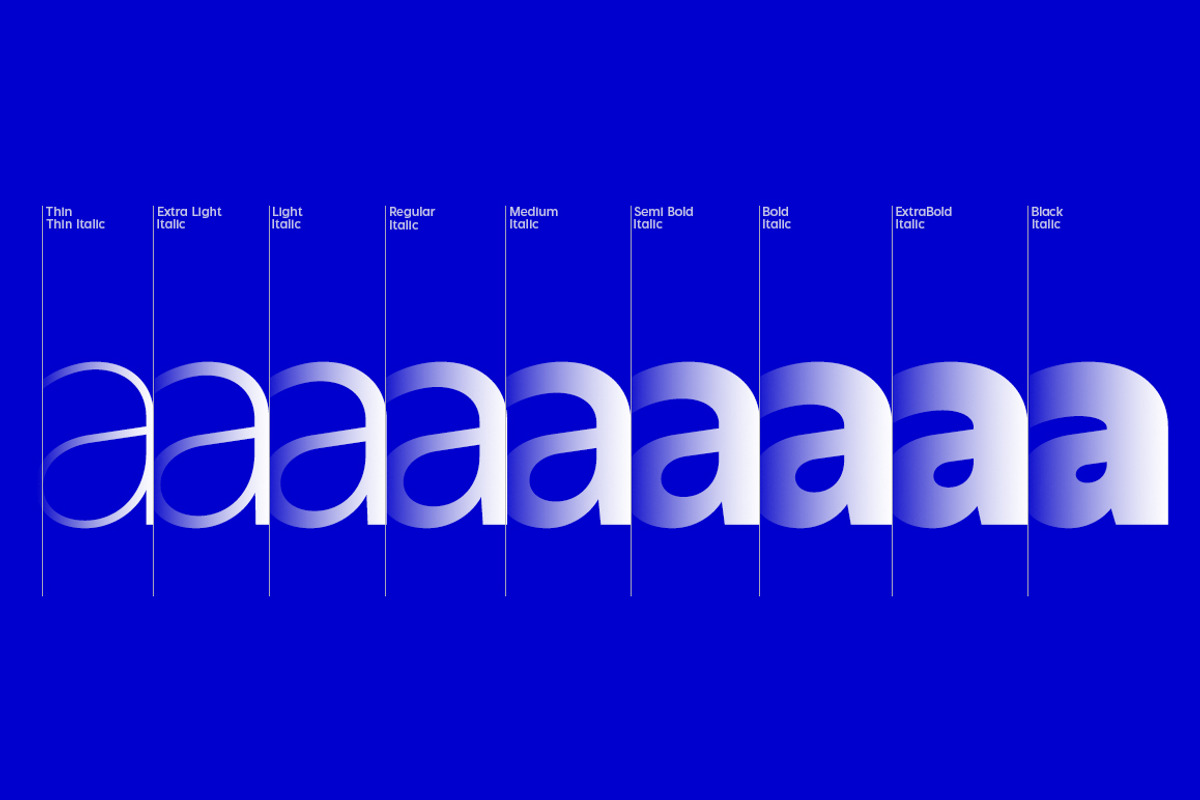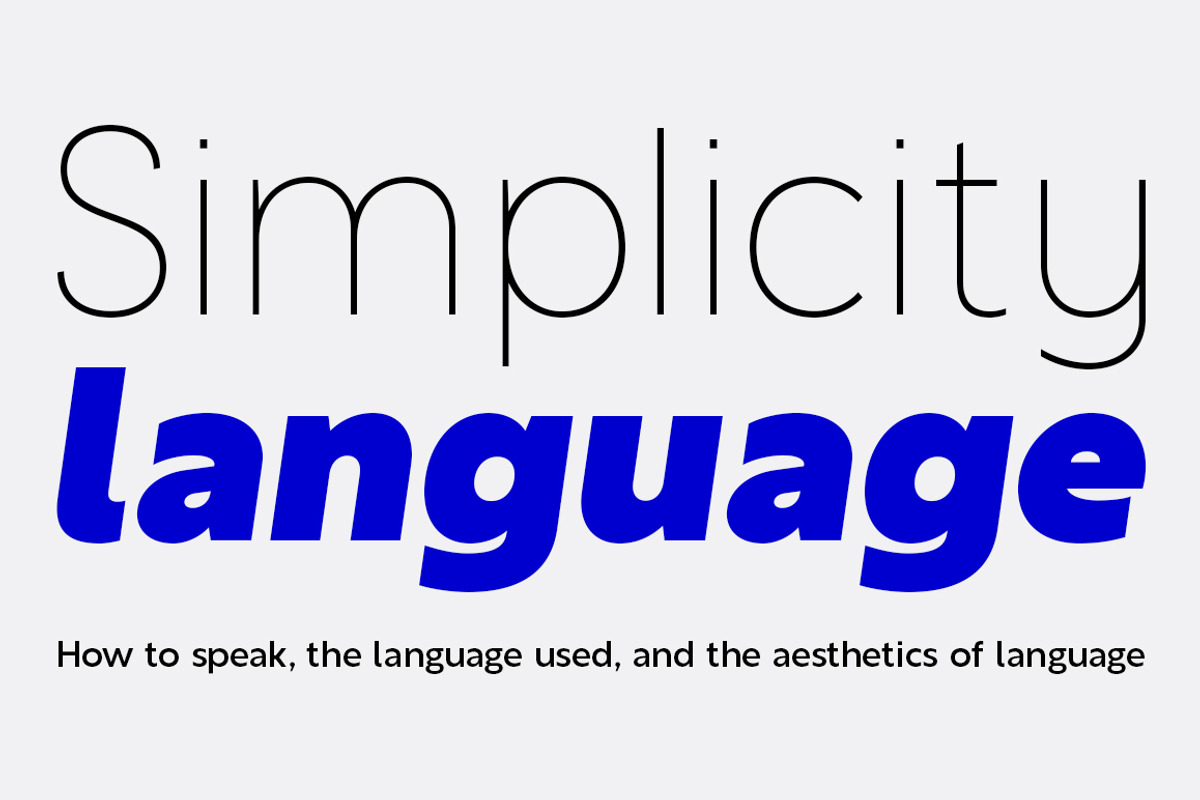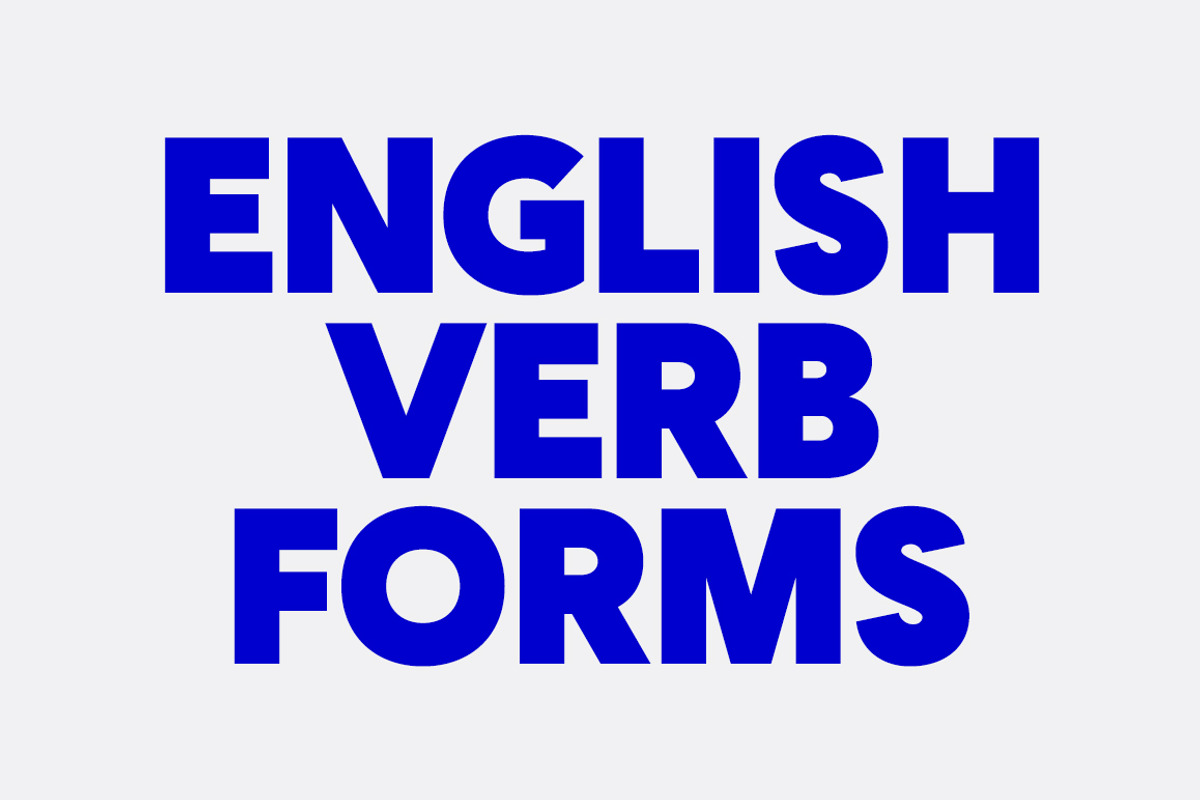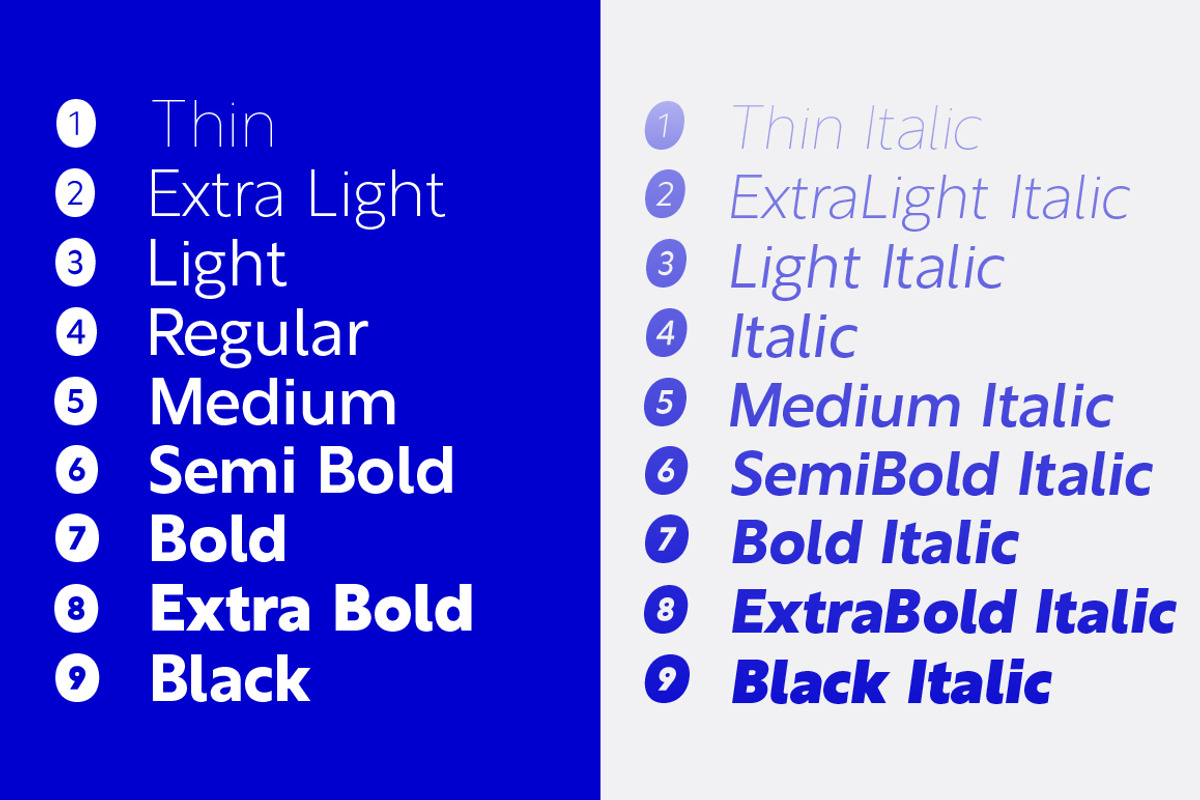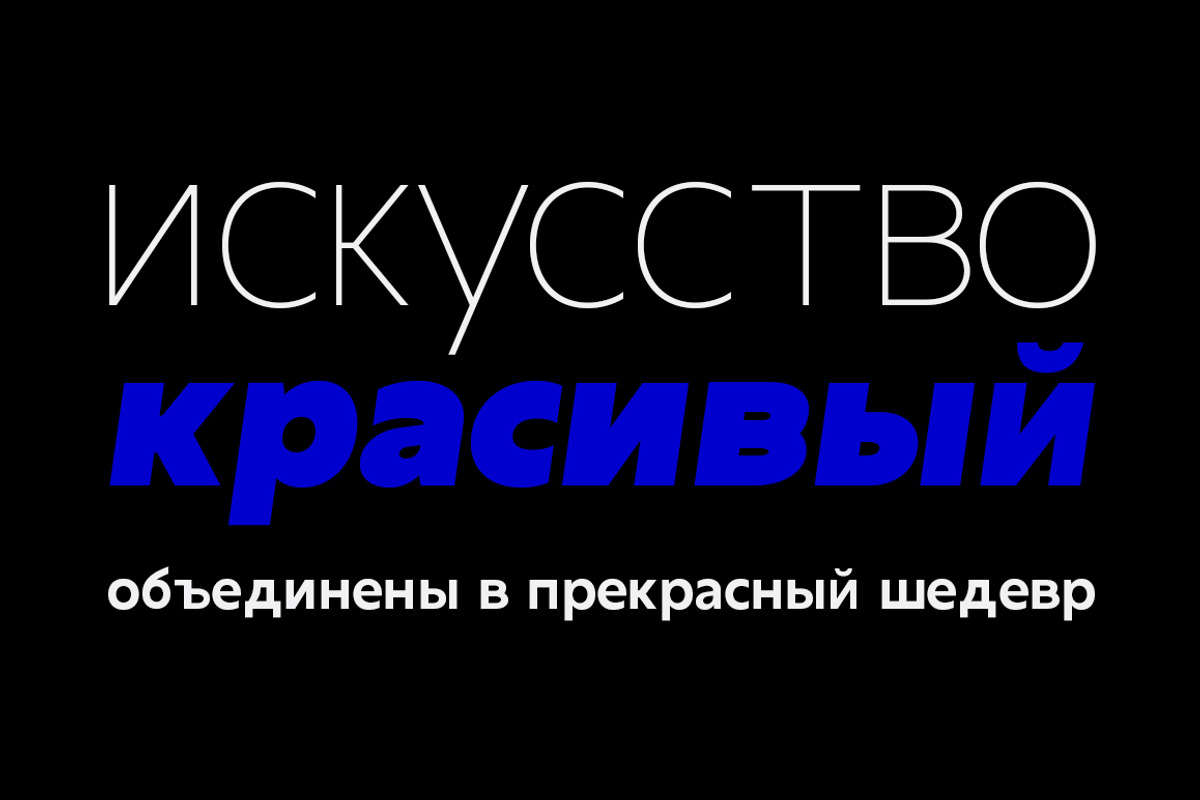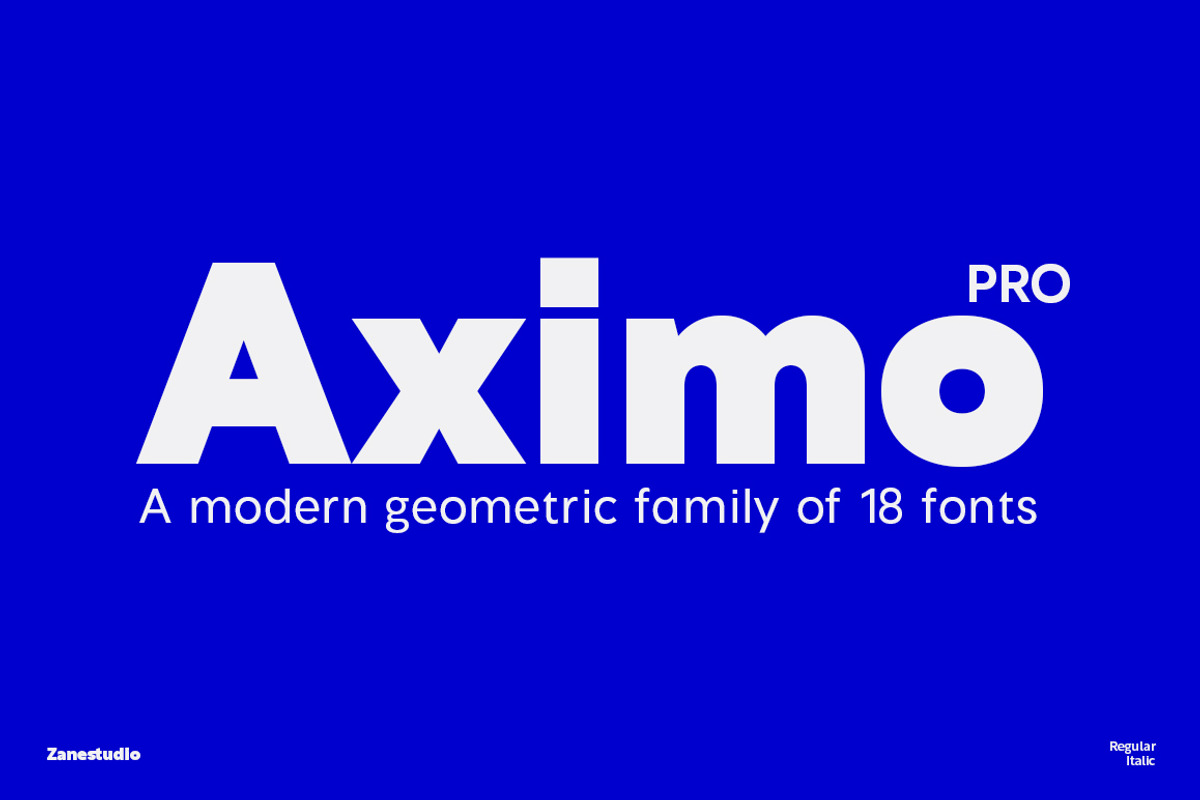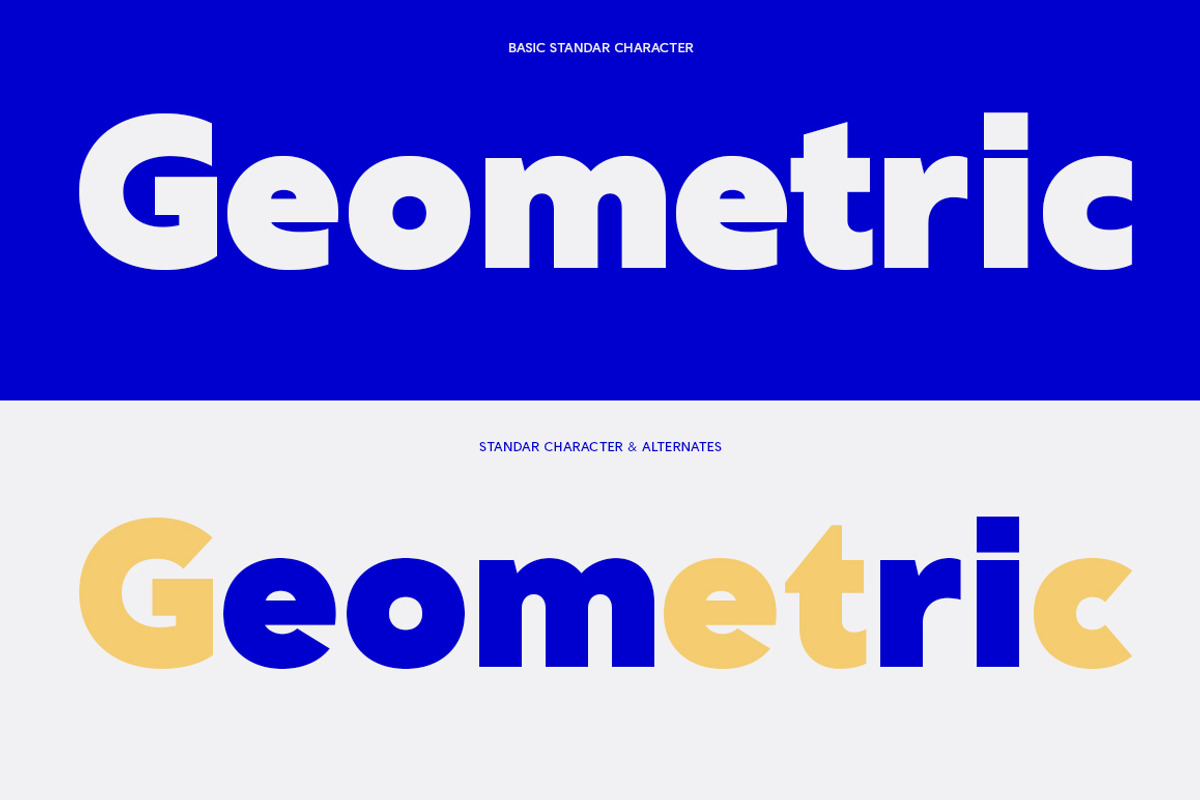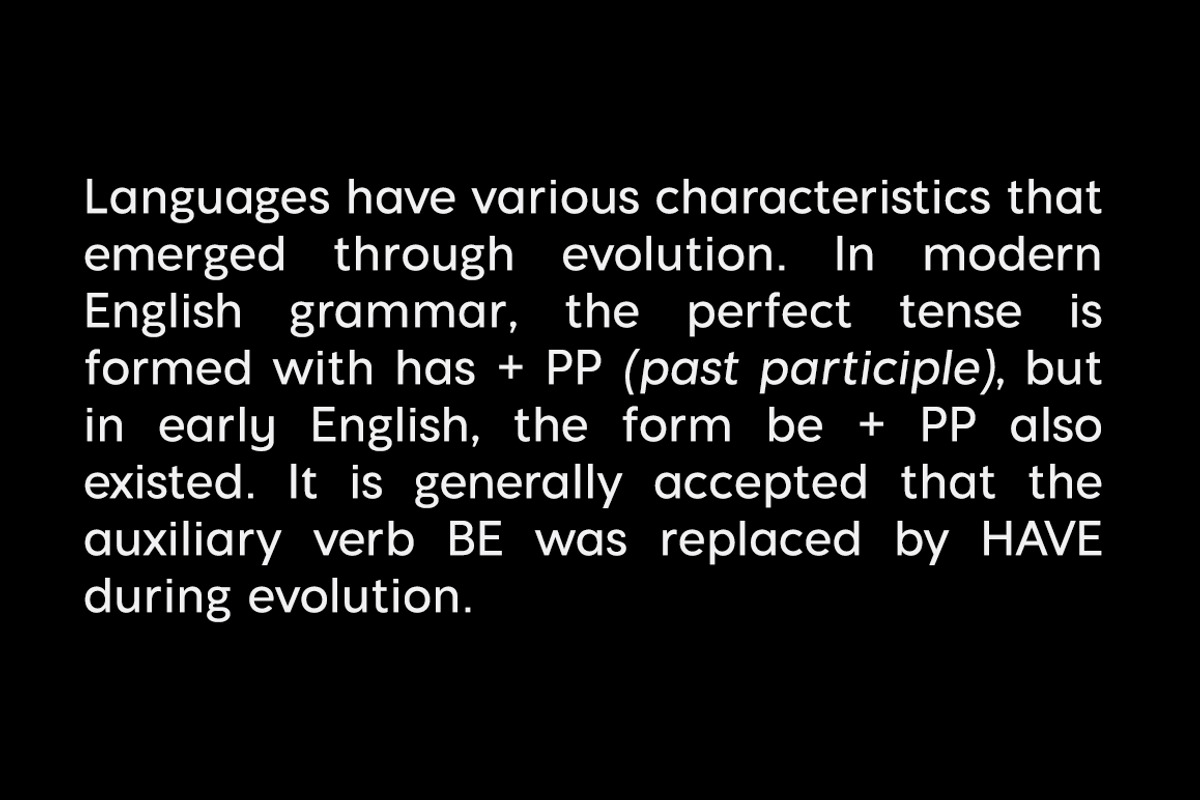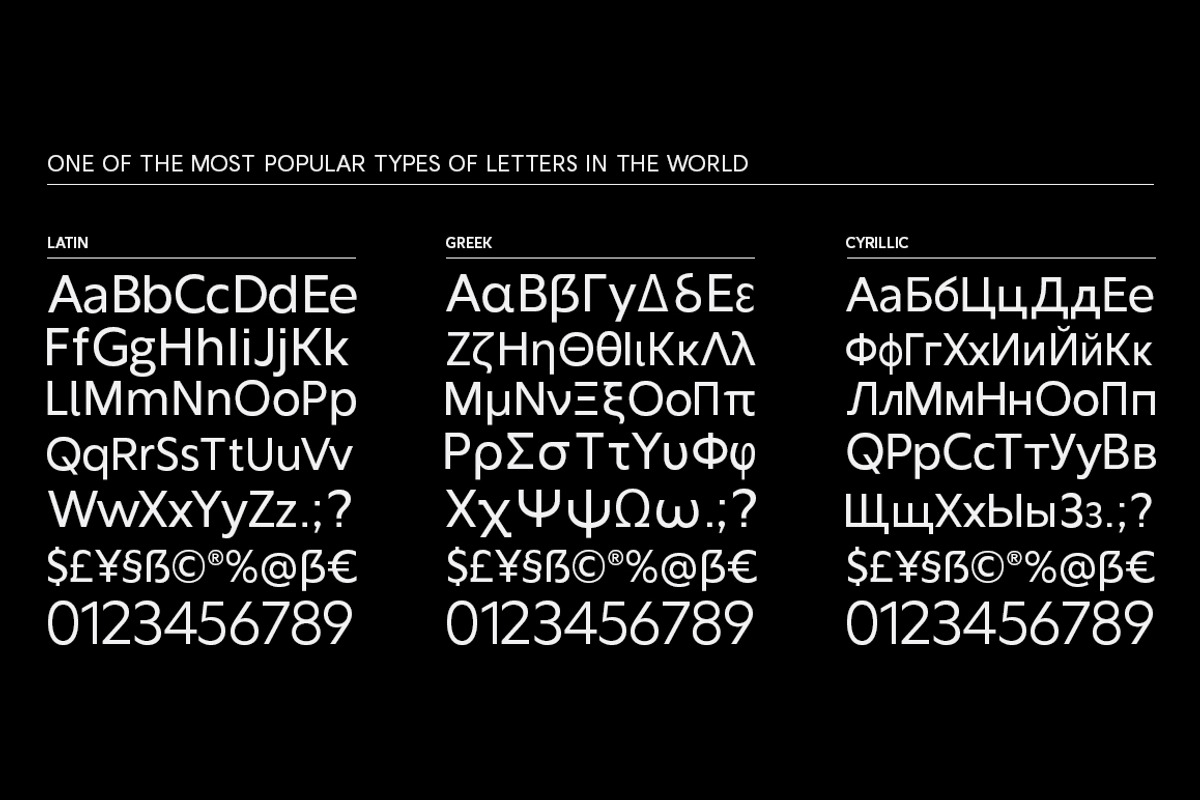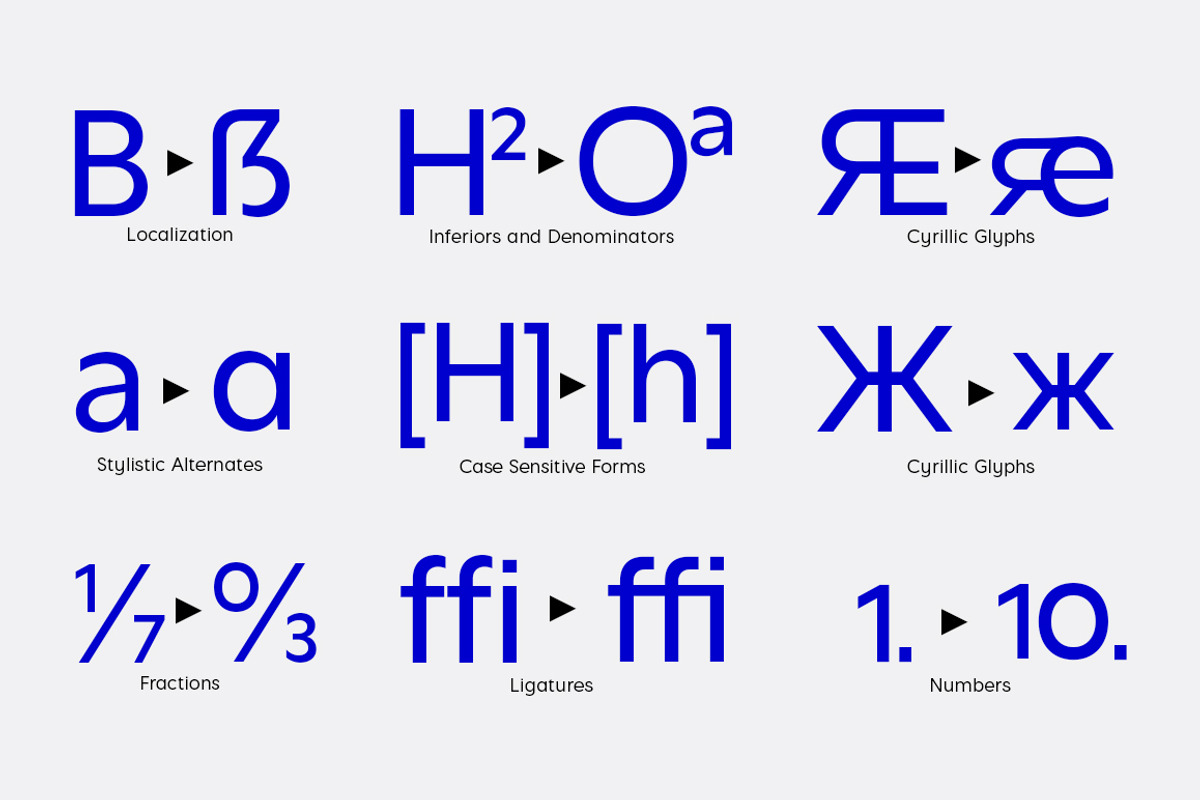
Aximo | Geometric Sans Serif
Aximo is a modern sans serif with a geometric twist. It is available in 18 weights, 9 perpendiculars, and a matching italic. The Thin & Black weights are free, so you can use them however you want. Designed with advanced opentype features in mind. Each weight includes extended language support (+Cyrillic), fractions, table images, arrows, ligatures, and more. It is perfect for graphic design and any display use. It can be easily used for web, signage, corporate, and editorial design.